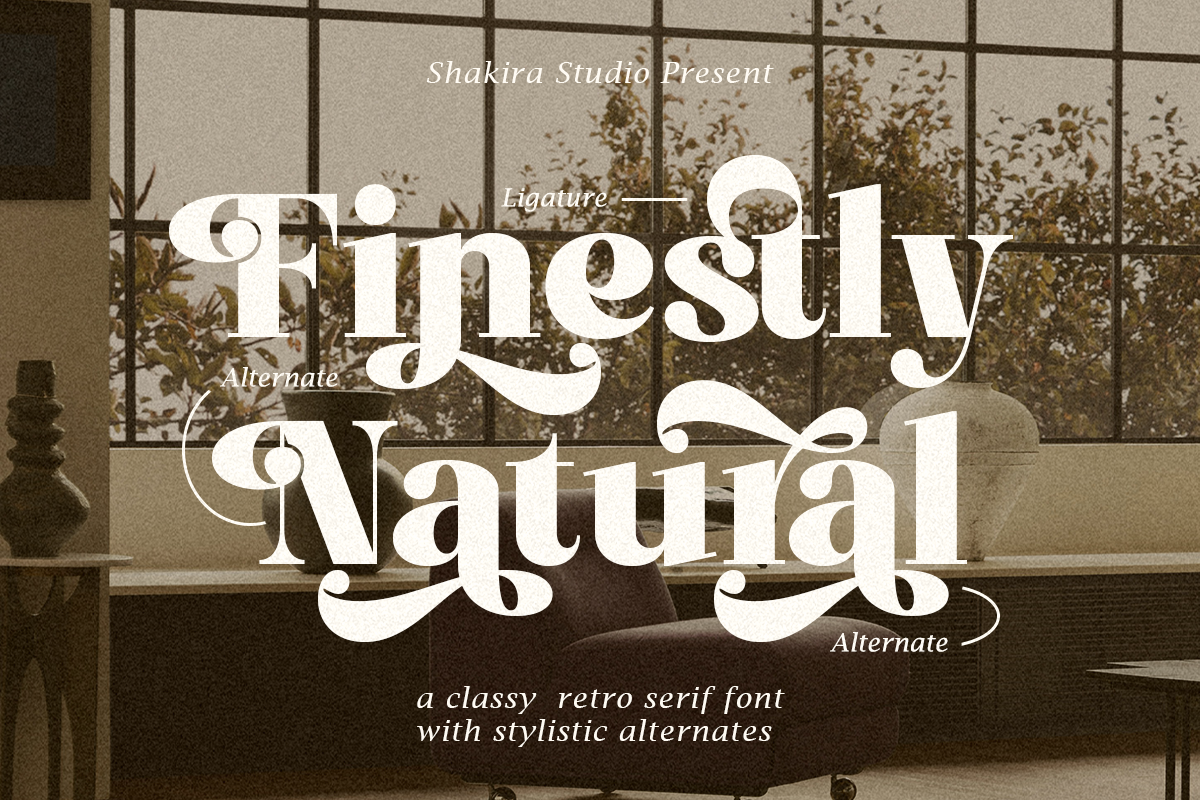
Finestly Natural Retro Serif Font Free Download is a stylish and expressive typeface that blends vintage charm with a modern twist. Featuring soft curves, high contrast strokes, and elegant serifs, this font is perfect for editorial layouts, fashion branding, packaging, logos, and social media designs that need a bold, nostalgic flair.
Inspired by retro typography from the '70s and '80s, Finestly Natural brings personality and sophistication to your projects while maintaining readability and balance. Its refined details and artistic flair make it a standout choice for creatives looking to make a lasting impression.
Whether you're aiming for classy or funky, this font adapts beautifully to both.